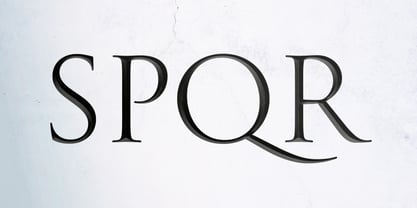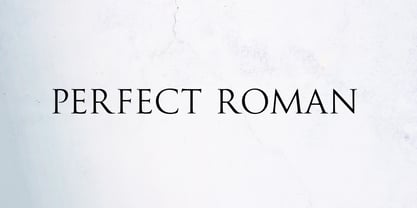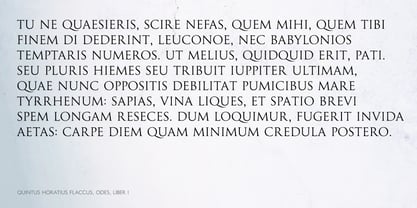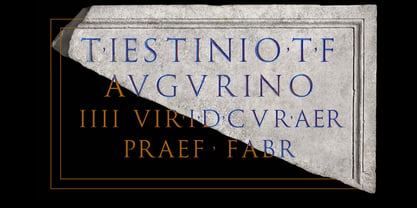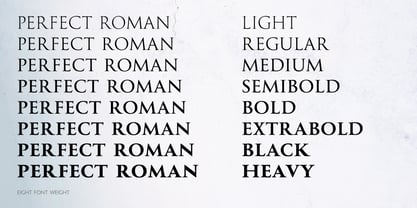
Perfect Roman
von Flanker
Die Schriftfamilie Perfect Roman wurde von Leonardo Di Lena entworfen und von Flanker veröffentlicht. Perfect Roman enthält 8 Stile und Familienpaketoptionen. Mehr über diese Familie
Perfect Roman is an inscriptional typeface inspired by the Roman epigraphic tradition, designed to convey the precision, balance, and monumentality of classical letterforms within a contemporary typographic context. The design is based on harmonious proportions, controlled contrast, and sharp terminals, with a rigorous construction that prioritizes legibility and visual presence. The forms are essential and restrained, avoiding overt calligraphic expression while preserving a sculptural quality, especially at display sizes. Primarily intended for titling, branding, and high-end editorial use, the typeface offers a full range of weights from Light to Heavy, allowing tonal variation while maintaining formal consistency and a strong identity. The result is an authoritative and stable typographic voice, capable of evoking the memory of carved inscriptions without appearing archaeological or decorative, but fully suited to contemporary design practice.
Leonardo Di Lena is a graphic and type designer from Italy. A lifelong typeface enthusiast, he loves studying historical fonts, as well as creating new typefaces never seen before. He has spent countless hours exploring the intricacies of various fonts, dissecting their anatomy, and reveling in the beauty of well-crafted type. He is continuously inspired by the ever-evolving landscape of fonts and the brilliant minds behind their creation. Exploring the works of renowned type designers and discovering hidden gems in the typographic universe fuels his enthusiasm and keeps he on a perpetual quest for the perfect font for any given context.